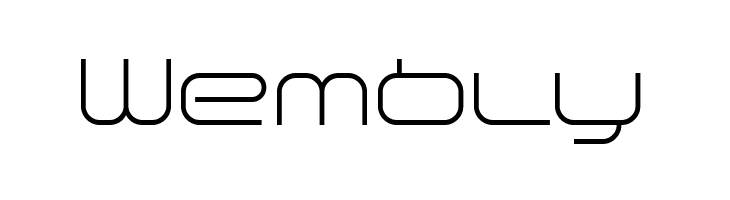
Republika IV - Haze Font
- Font: Republika IV - Haze
( Font by Sven Stuber - www.superlooper.de )
A futuristic, minimalist font with thin, geometric lines and a sleek design.